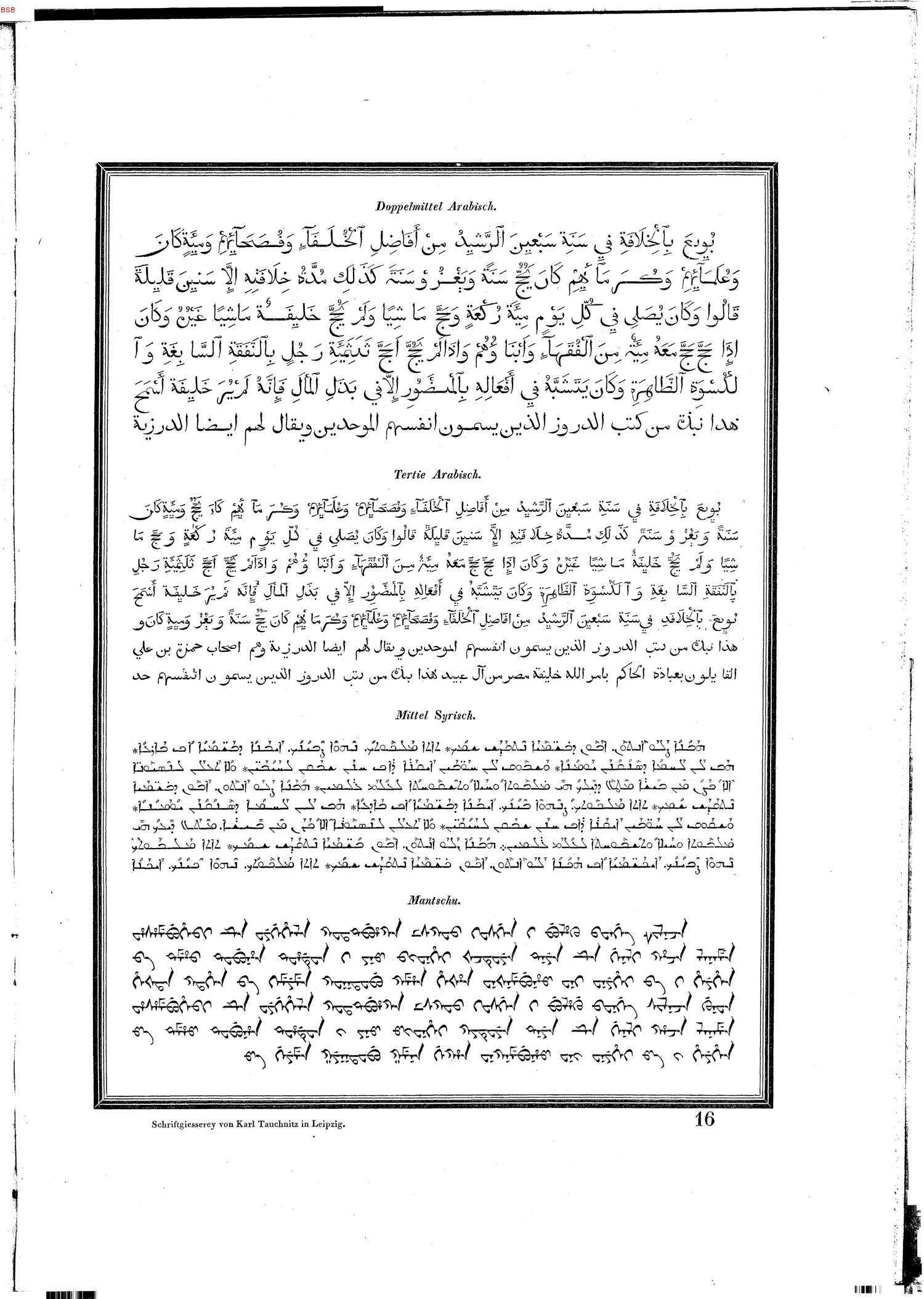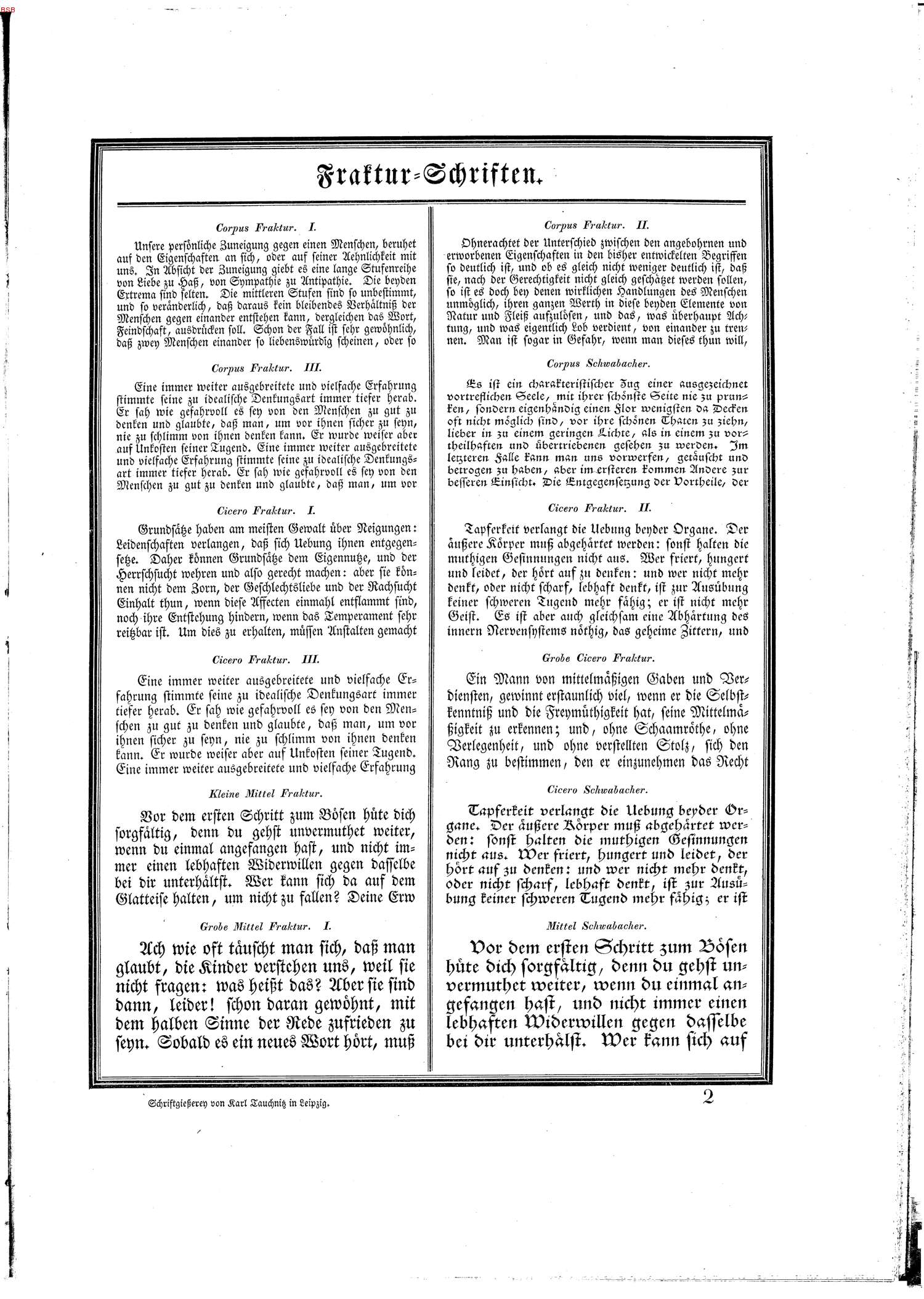
Karl Tauchnitz [Karl Christoph Traugott Tauchnitz]
Leipzig-based foundry. Karl Tauchnitz (b. 1761, Grossbardau bei Grimma, Germany) set up a print shop in 1797 and a type foundry in 1800. He had studied in Leipzig. To improve the quality and reduce the costs of book production, he introdiced stereotyping in 1816, and received assistance with typefaces from punchcutter Johann Gottfried Schelter. Karl died in 1836.
His son Philipp Tauchnitz (b. 1798) continued the business but declined steadily. In 1865, the printing and typefounding company fell in the hands of Friedrich Ludwig Metzger, who had worked for Tauchnitz. Philipp Tauchnitz died in 1884. He left his considerable holdings, over 41 million marks, to the city of Leipzig.
Reference: Proben aus der Schriftgiesserei von Karl Tauchnitz in Leipzig (1825, Leipzig).